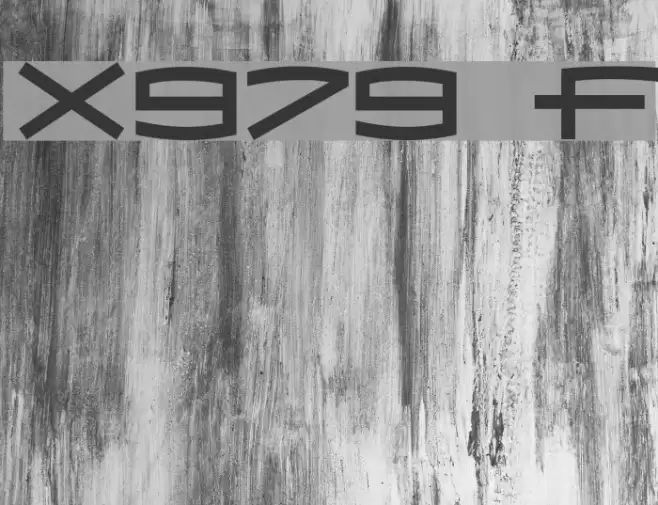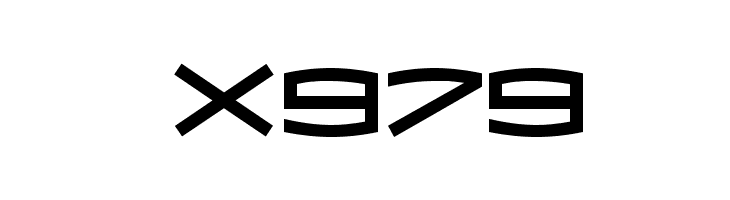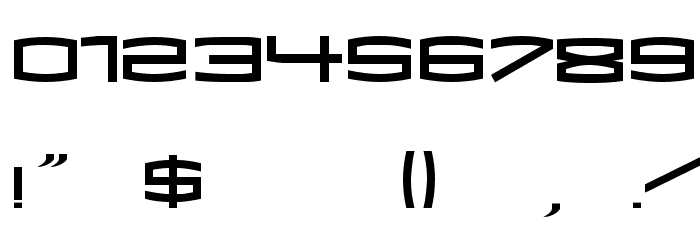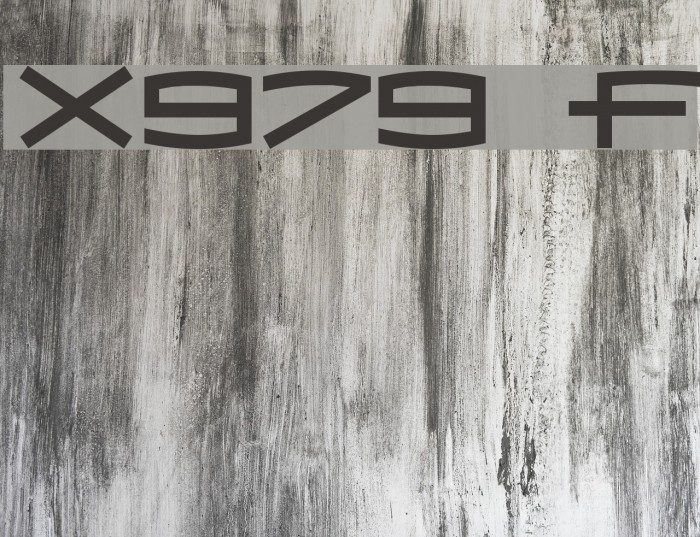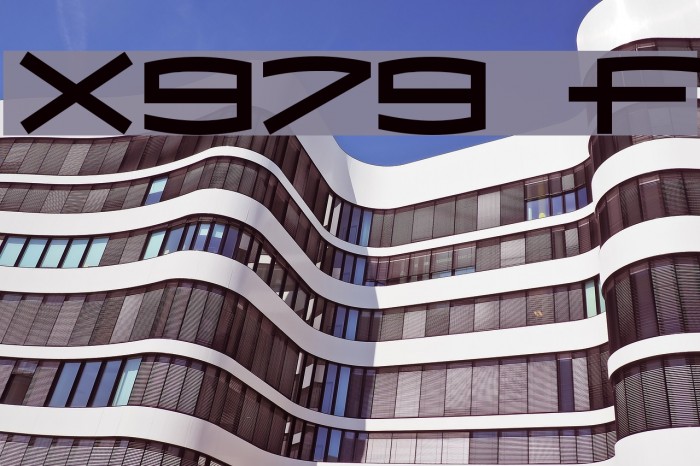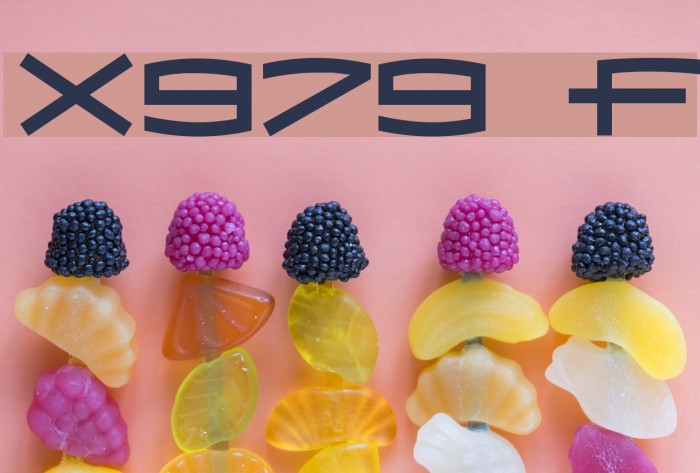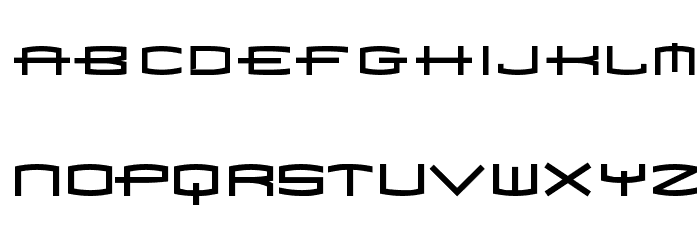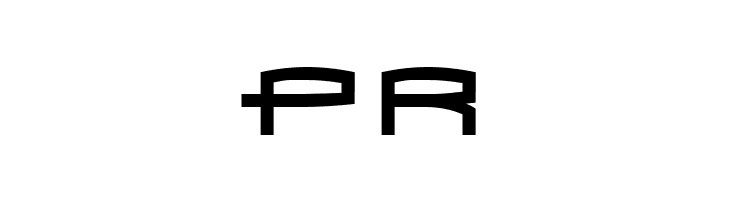
X979 Font
X979 Description
This font features a futuristic and geometric design, characterized by its sharp angles and distinct horizontal lines that cut through each character. The uppercase letters are bold and striking, with a consistent height and width that give them a uniform appearance. The lowercase letters maintain the same geometric style, offering a cohesive look across both cases. Numbers are designed with the same angular aesthetic, ensuring readability while maintaining the font's unique style. Special characters are also included, following the same design principles, making this font versatile for various uses. The overall appearance is modern and tech-inspired, suitable for projects that require a cutting-edge and innovative look.
A futuristic, geometric font with sharp angles and horizontal lines from Capitals fonts.
- Proposed Projects: Ideal for technology branding, sci-fi themed designs, video game interfaces, and modern posters.